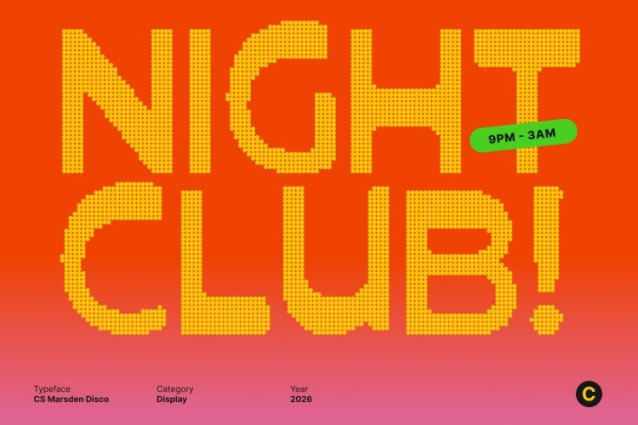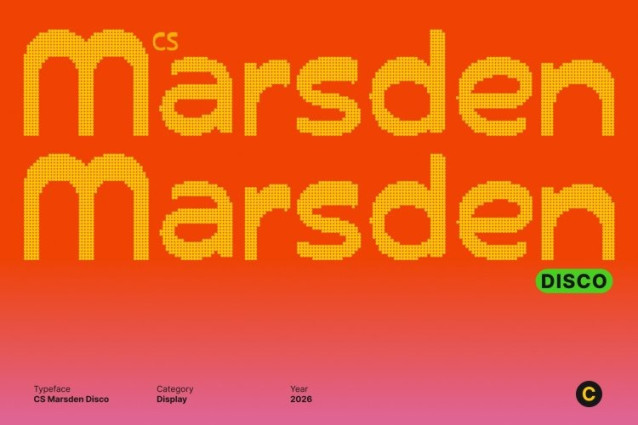
CS Marsden Disco Font
CS Marsden Disco Font This is a modern reverse contrast display font that turns typography into a visual performance. Its bold, inverted stroke contrast delivers a striking and unconventional look, now energized with disco-inspired flair. Blending classic typographic logic with modern nightlife aesthetics, each letter feels confident, expressive, and ready to shine under flashing lights.
Modular Geometry with Luminous Precision
Built from carefully designed modular forms, this font maintains strong structure and balance while radiating modern sophistication. The geometric construction keeps the design clean and readable, while its disco character adds a polished glow evoking reflections, rhythm, and movement across the dance floor.
Dynamic Rhythm with High-Impact Presence
The reverse contrast creates a dramatic visual beat, giving text a lively, pulsating rhythm. In its Disco style, this effect feels even more energetic and festive, making every word appear animated and bold. It’s perfect for designs that demand attention, excitement, and a sense of celebration.
Perfect for Glamorous Branding and Festive Promotion
This font thrives in bold branding, posters, fashion visuals, editorial headlines, and promotional campaigns that embrace confidence and individuality. Inspired by retro glamour and modern design culture, it delivers a powerful typographic voice that feels stylish, expressive, and unmistakably vibrant.